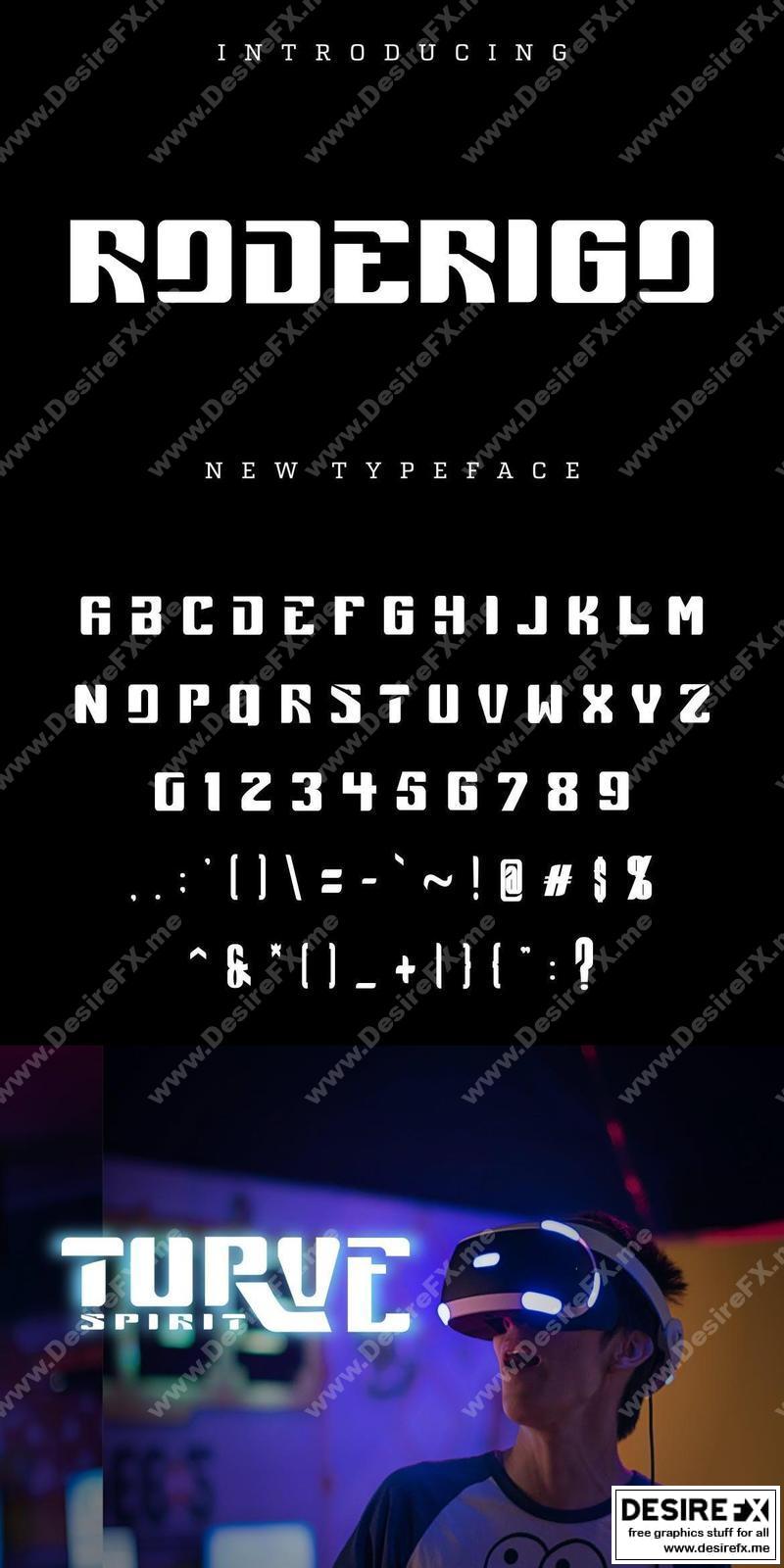
Roderigo Font L6G5QPE
Proudly present our new product Roderigo Font
Roderigo Font is a modern and authentic font. Perfect for both professional and branding needs of a product.
This font is suitable for any branding project like quotes, logo, blog header, poster, banding, letter, invitation, stationery, etc…
Designed as a versatile and flexible that can be used on a range of projects and mediums.outstanding in a wide range of contexts.